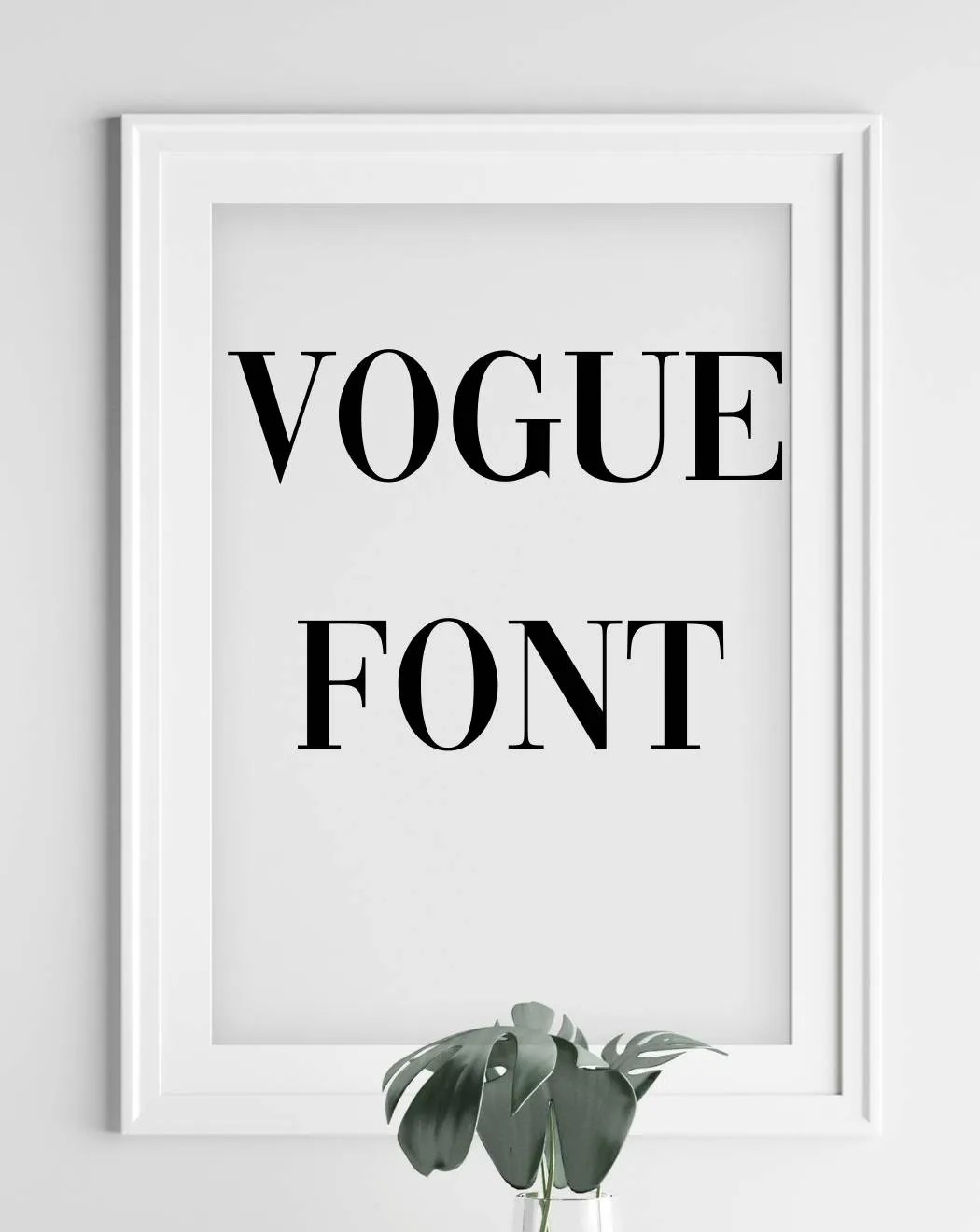
What Font Is Vogue . What is the vogue font? The vogue font is a typeface that is often associated with the renowned fashion magazine vogue. Exact versions used by vogue are not available to the public, but similar styles can be found through commercial type foundries. The vogue font used in the logo is a modified version of a serif font called “didot“, a serif typeface birthed by firmin didot in the late 18th century. For commercial use, please order a license here: Didot is instantly recognizable by its high contrast,. However, i have found a font that is free and very similar to the font used in this logo. What font does vogue use for their title? Discover the answer in this comprehensive introduction to the vogue magazine logo and typography. The font is “vogue” and was designed by vladimir nikolic. Most likely, this font has been personalized. The primary fonts like didot and vogue ag are proprietary, tailored specifically for vogue to solidify its brand identity.
The primary fonts like didot and vogue ag are proprietary, tailored specifically for vogue to solidify its brand identity. What font does vogue use for their title? Exact versions used by vogue are not available to the public, but similar styles can be found through commercial type foundries. The vogue font is a typeface that is often associated with the renowned fashion magazine vogue. Didot is instantly recognizable by its high contrast,. However, i have found a font that is free and very similar to the font used in this logo. The vogue font used in the logo is a modified version of a serif font called “didot“, a serif typeface birthed by firmin didot in the late 18th century. What is the vogue font? Most likely, this font has been personalized. For commercial use, please order a license here:
What Font Is Vogue Discover the answer in this comprehensive introduction to the vogue magazine logo and typography. Didot is instantly recognizable by its high contrast,. Discover the answer in this comprehensive introduction to the vogue magazine logo and typography. The vogue font is a typeface that is often associated with the renowned fashion magazine vogue. The vogue font used in the logo is a modified version of a serif font called “didot“, a serif typeface birthed by firmin didot in the late 18th century. Exact versions used by vogue are not available to the public, but similar styles can be found through commercial type foundries. What font does vogue use for their title? Most likely, this font has been personalized. What is the vogue font? For commercial use, please order a license here: However, i have found a font that is free and very similar to the font used in this logo. The font is “vogue” and was designed by vladimir nikolic. The primary fonts like didot and vogue ag are proprietary, tailored specifically for vogue to solidify its brand identity.
Fashion Vogue Serif Fonts Creative Market What Font Is Vogue However, i have found a font that is free and very similar to the font used in this logo. Exact versions used by vogue are not available to the public, but similar styles can be found through commercial type foundries. The vogue font used in the logo is a modified version of a serif font called “didot“, a serif typeface. What Font Is Vogue.
FREE Vogue Font That Will Look Exquisite on Logos, Posters, and Apparel HipFonts What Font Is Vogue For commercial use, please order a license here: The primary fonts like didot and vogue ag are proprietary, tailored specifically for vogue to solidify its brand identity. The vogue font is a typeface that is often associated with the renowned fashion magazine vogue. What is the vogue font? The font is “vogue” and was designed by vladimir nikolic. What font. What Font Is Vogue.
British Vogue (19992002) Fonts In Use What Font Is Vogue Most likely, this font has been personalized. The vogue font is a typeface that is often associated with the renowned fashion magazine vogue. The vogue font used in the logo is a modified version of a serif font called “didot“, a serif typeface birthed by firmin didot in the late 18th century. The primary fonts like didot and vogue ag. What Font Is Vogue.
Vogue Font Download Free for Desktop & font What Font Is Vogue Discover the answer in this comprehensive introduction to the vogue magazine logo and typography. Didot is instantly recognizable by its high contrast,. The vogue font used in the logo is a modified version of a serif font called “didot“, a serif typeface birthed by firmin didot in the late 18th century. For commercial use, please order a license here: The. What Font Is Vogue.
Vogue Font Download Font & Logo HERE What Font Is Vogue What is the vogue font? However, i have found a font that is free and very similar to the font used in this logo. The primary fonts like didot and vogue ag are proprietary, tailored specifically for vogue to solidify its brand identity. For commercial use, please order a license here: What font does vogue use for their title? Discover. What Font Is Vogue.
Vogue Logo Fonts Celebrity Glam What Font Is Vogue The primary fonts like didot and vogue ag are proprietary, tailored specifically for vogue to solidify its brand identity. Didot is instantly recognizable by its high contrast,. Exact versions used by vogue are not available to the public, but similar styles can be found through commercial type foundries. However, i have found a font that is free and very similar. What Font Is Vogue.
joanna behar What's This Font 1.2 VOGUE Paris What Font Is Vogue The primary fonts like didot and vogue ag are proprietary, tailored specifically for vogue to solidify its brand identity. What is the vogue font? Most likely, this font has been personalized. The font is “vogue” and was designed by vladimir nikolic. What font does vogue use for their title? The vogue font is a typeface that is often associated with. What Font Is Vogue.
Vogue Regular free Font What Font Is Vogue The vogue font is a typeface that is often associated with the renowned fashion magazine vogue. Discover the answer in this comprehensive introduction to the vogue magazine logo and typography. The font is “vogue” and was designed by vladimir nikolic. What is the vogue font? However, i have found a font that is free and very similar to the font. What Font Is Vogue.
Vogue Regular free Font What Font Is Vogue Exact versions used by vogue are not available to the public, but similar styles can be found through commercial type foundries. Didot is instantly recognizable by its high contrast,. However, i have found a font that is free and very similar to the font used in this logo. Most likely, this font has been personalized. The vogue font is a. What Font Is Vogue.